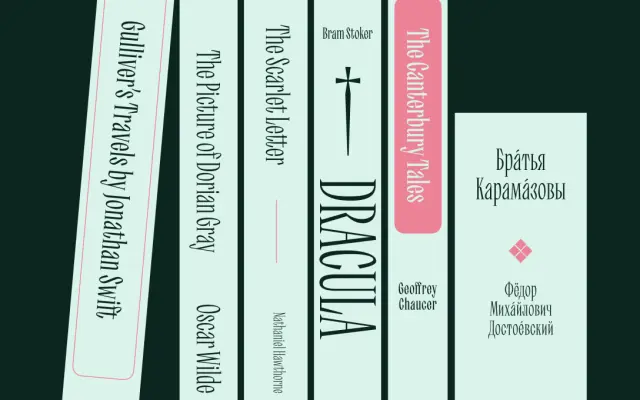
Trixy
Fontfabric · Viktoria Usmanova, Ivelina Martinova · 2025
A condensed display serif drawing on Soviet-era Cyrillic book lettering, offered in two stylistic variants with variable font support.
Trixy comes in two subfamilies: Stories, with refined ligatures and stylistic alternates, and Tales, which pushes the expression further with sharper details and elongated swash-like legs. Both share narrow proportions, high contrast and vertical serifs rooted in mid-20th century Cyrillic typographic heritage. Ten static styles run from Light to Bold across the two subfamilies, accompanied by variable font versions, with coverage across Latin and Cyrillic scripts.
A high-contrast condensed serif with sharp vertical serifs and swash details inspired by Soviet-era Cyrillic lettering, firmly in the display category given its narrow proportions, eccentric details and two expressive stylistic subfamilies.